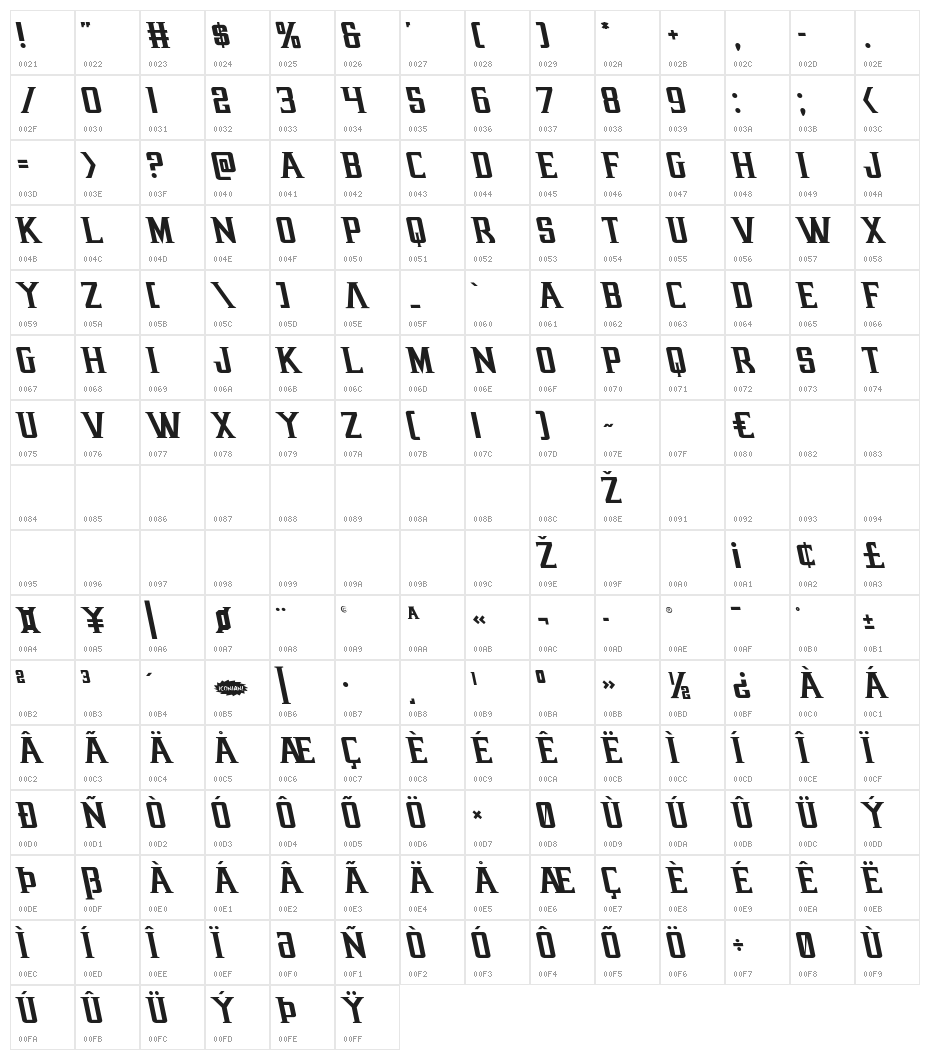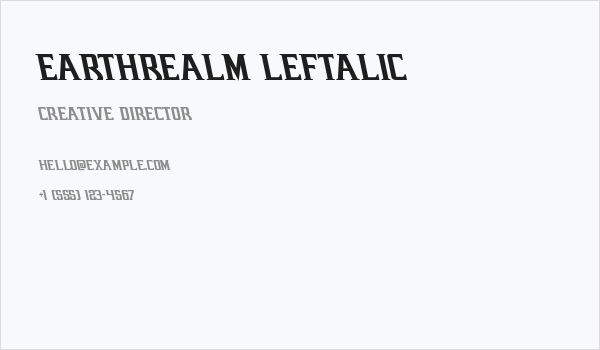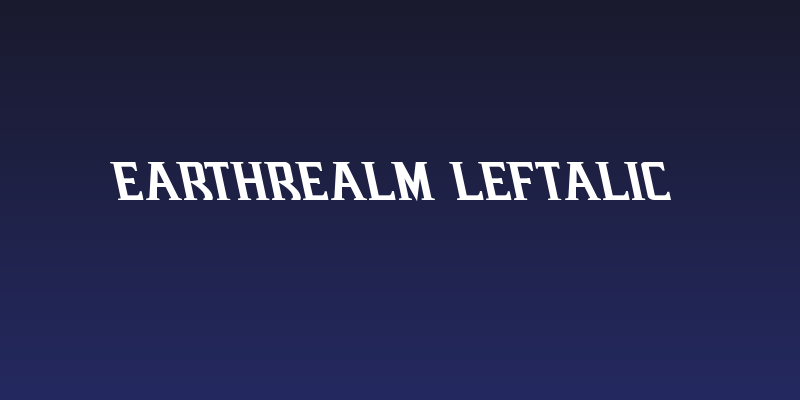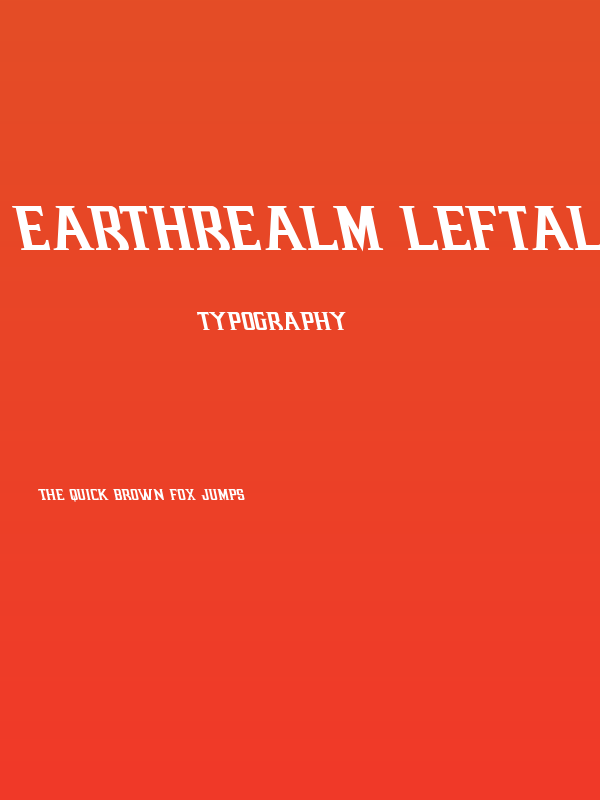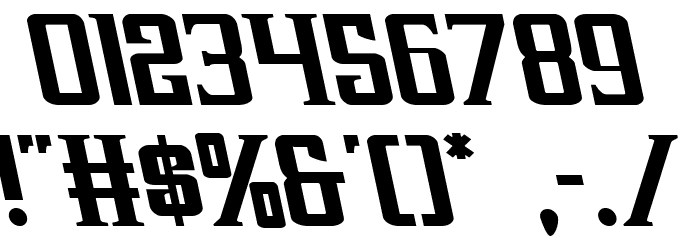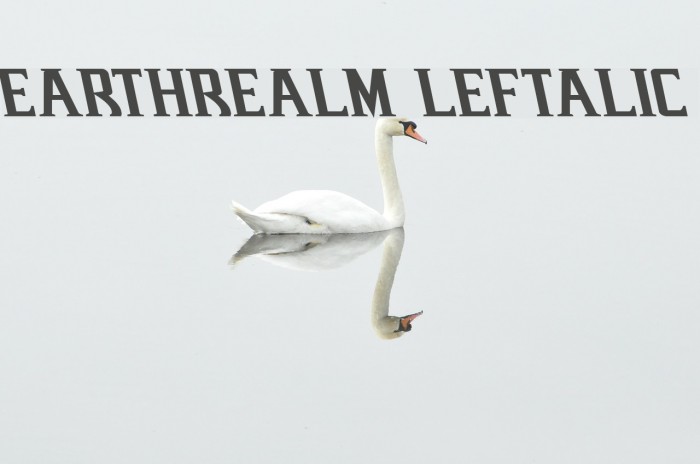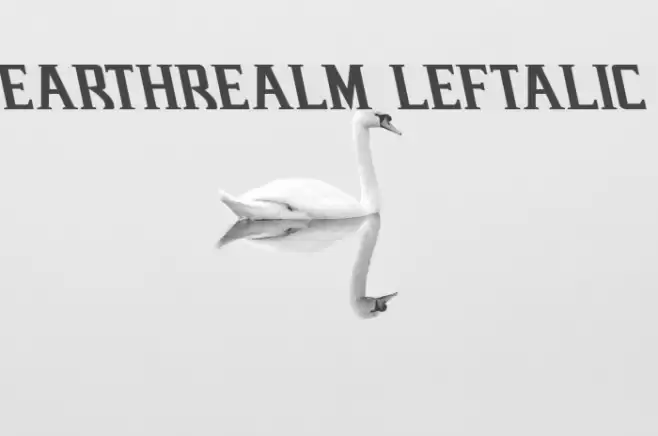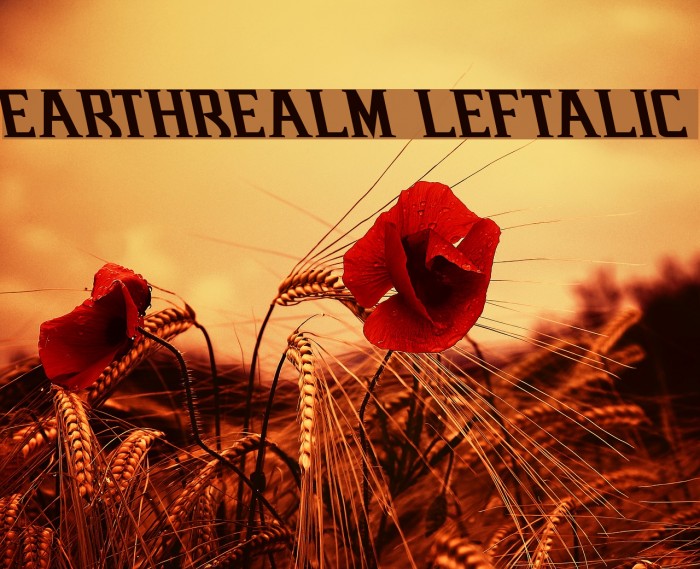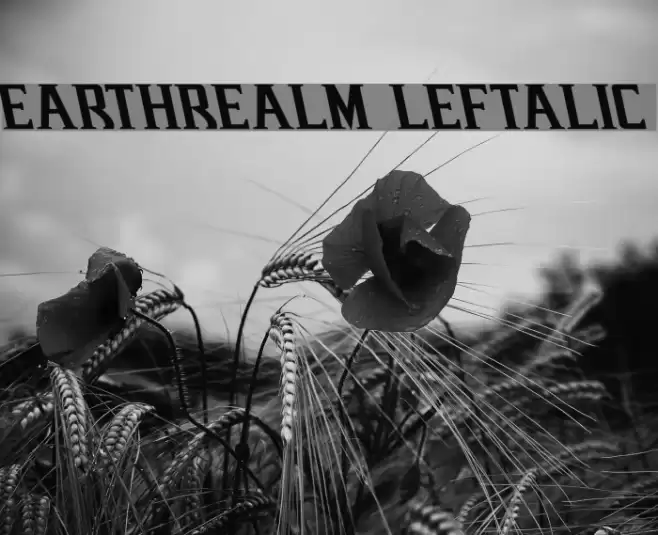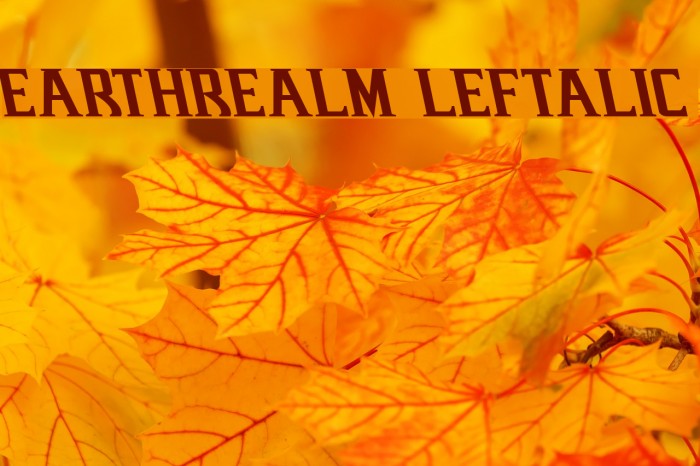
Earthrealm Leftalic Font
Earthrealm Leftalic Description
This font features a bold and dynamic style with a distinct slant to the left, giving it a unique italicized appearance. The characters are robust and angular, with sharp edges and a strong presence. The uppercase and lowercase letters maintain a consistent weight, contributing to a cohesive look. The numerals are equally bold, ensuring readability and impact. Special characters are designed with the same angular style, providing a harmonious overall aesthetic. The font's design is modern and assertive, making it suitable for projects that require a strong visual statement.
| Proposed Projects | Ideal for sports branding, dynamic posters, and bold headlines. |